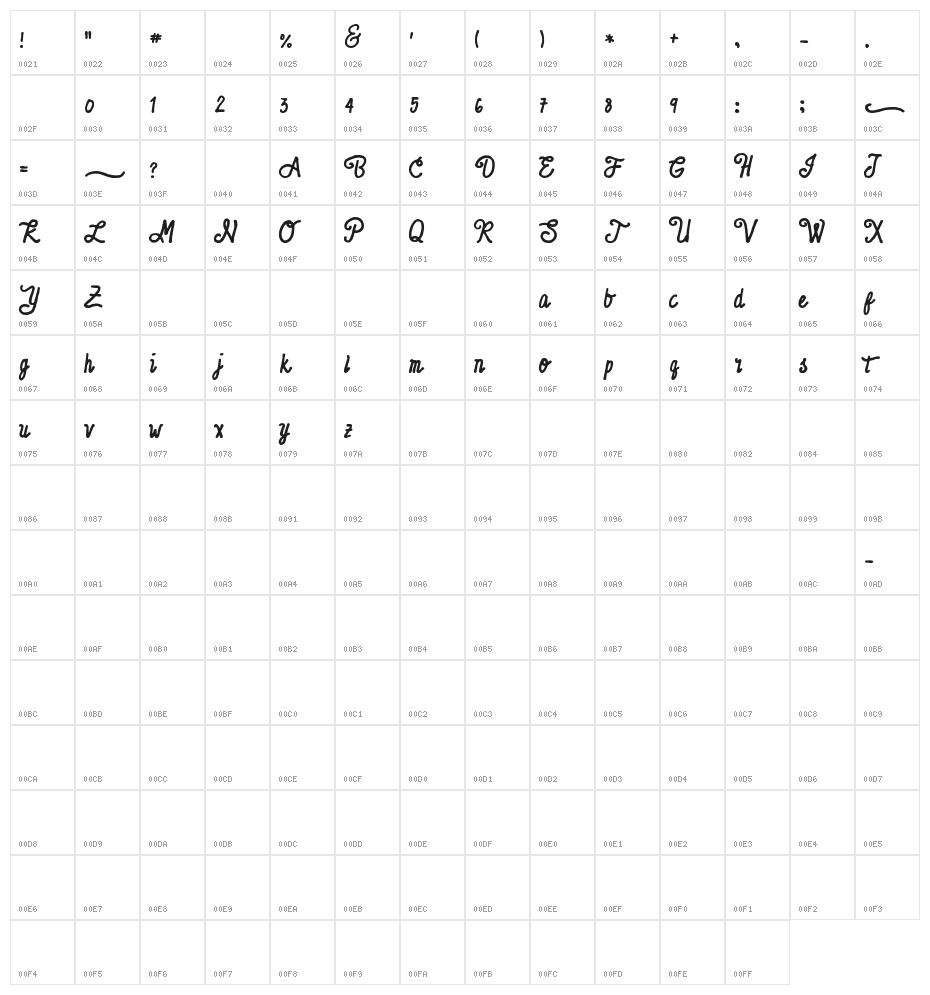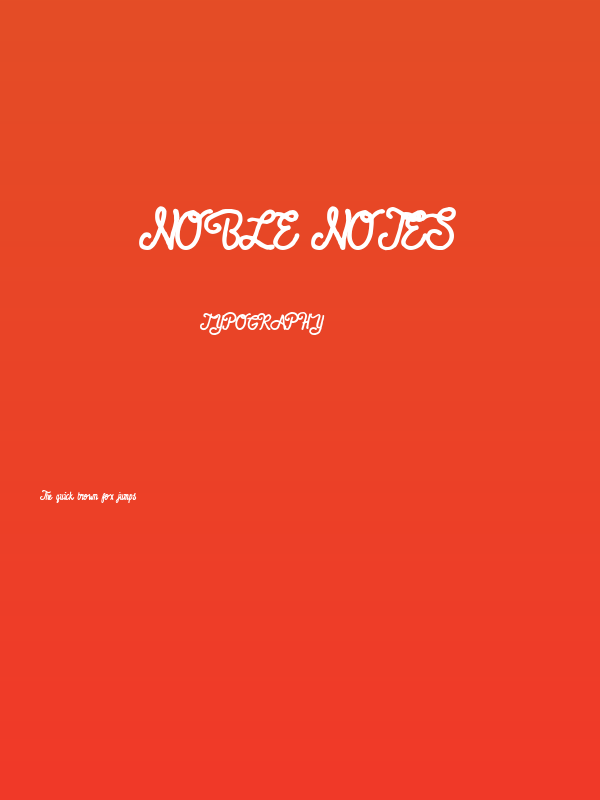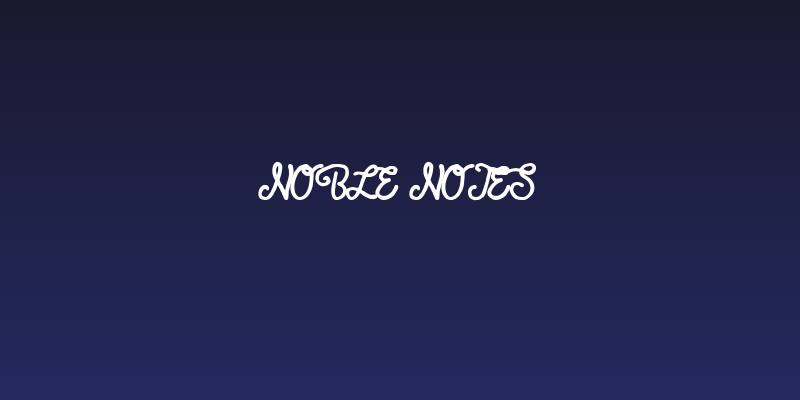
Noble Notes Font
Noble Notes Description
This font features a playful and dynamic script style, characterized by its flowing and interconnected letterforms. The uppercase letters exhibit a bold and confident appearance, with exaggerated loops and curves that add a sense of movement and flair. The lowercase letters maintain a consistent rhythm, with smooth transitions between strokes, creating a harmonious and cohesive look. The numerals are designed to match the overall style, with a slightly whimsical touch. Special characters are integrated seamlessly, maintaining the font's lively and expressive nature. This font is ideal for projects that require a personal and artistic touch, such as invitations, greeting cards, and creative branding.
Use CaseLogos, Headlines, Artistic projects
Proposed ProjectsIdeal for invitations, greeting cards, artistic branding, and creative projects.